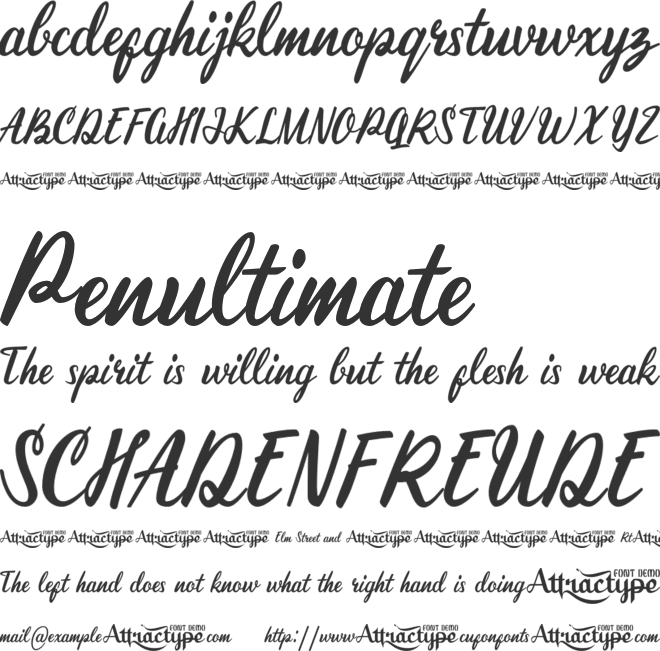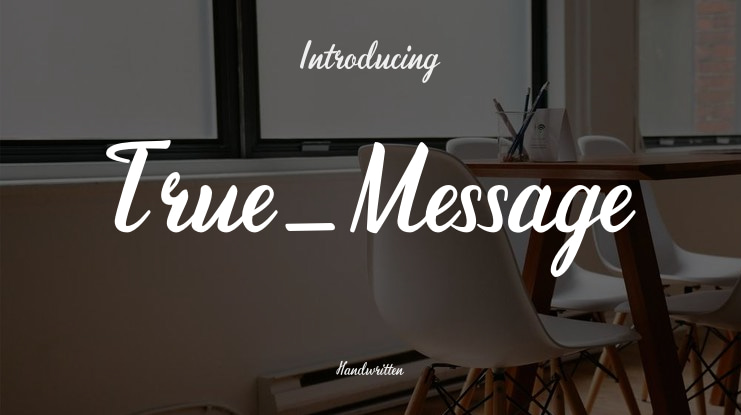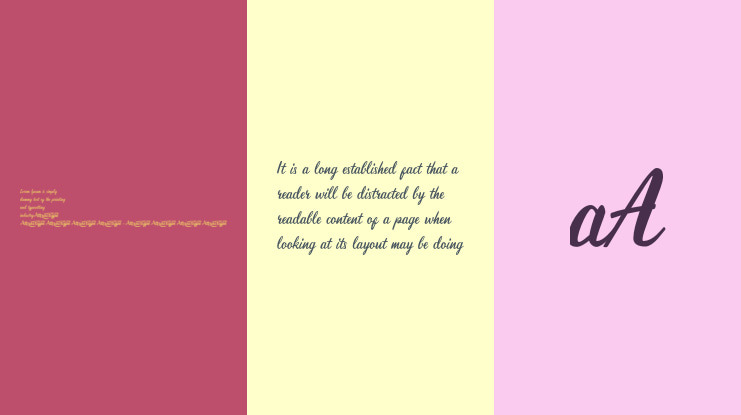
True_Message Font
True Message is a handwritten brush font that created by skilled hands to make this font look stylish and elegant. This font is fully multi-language and has unique alternate characters that make it look prettier.
Attractype